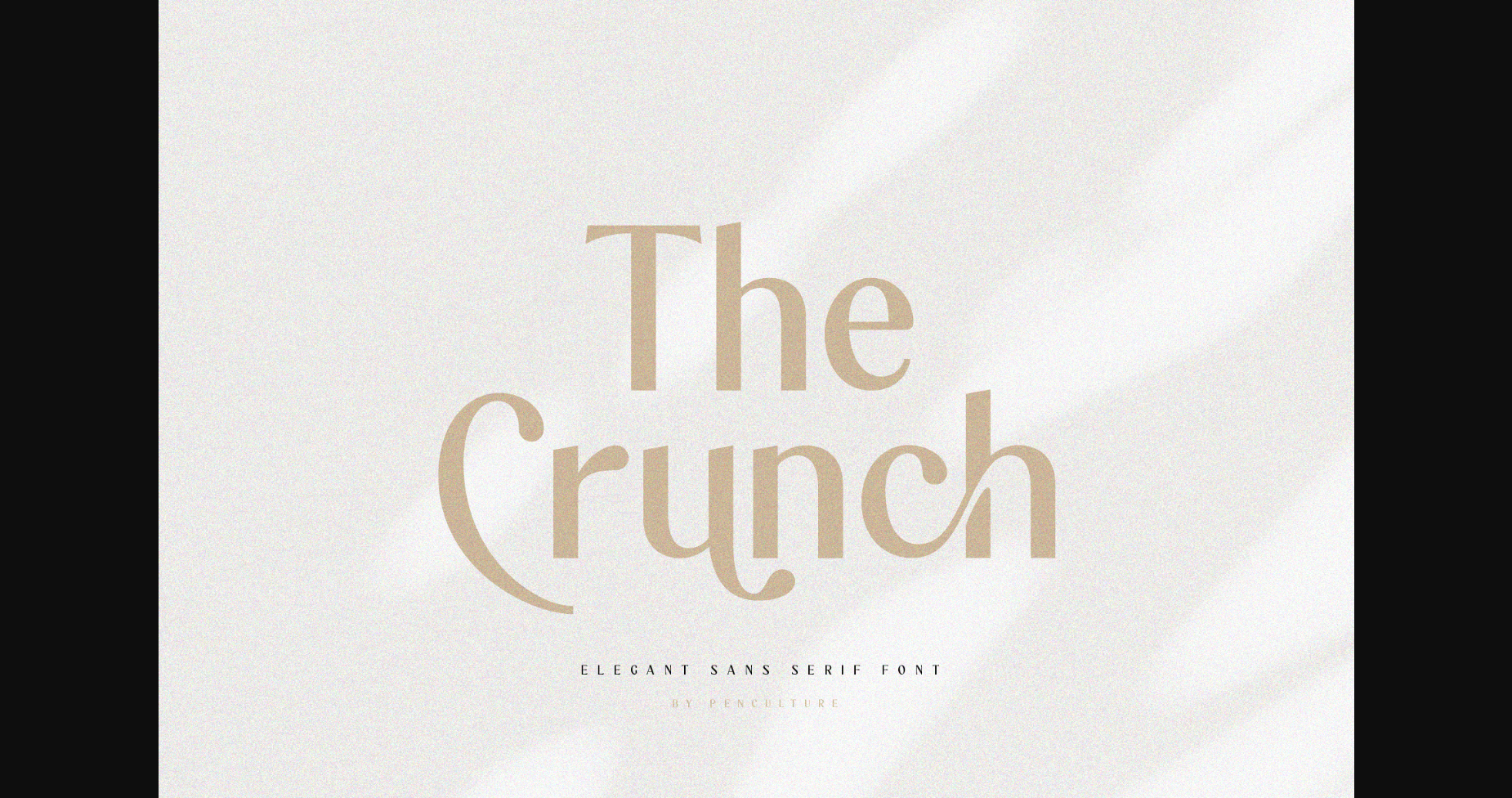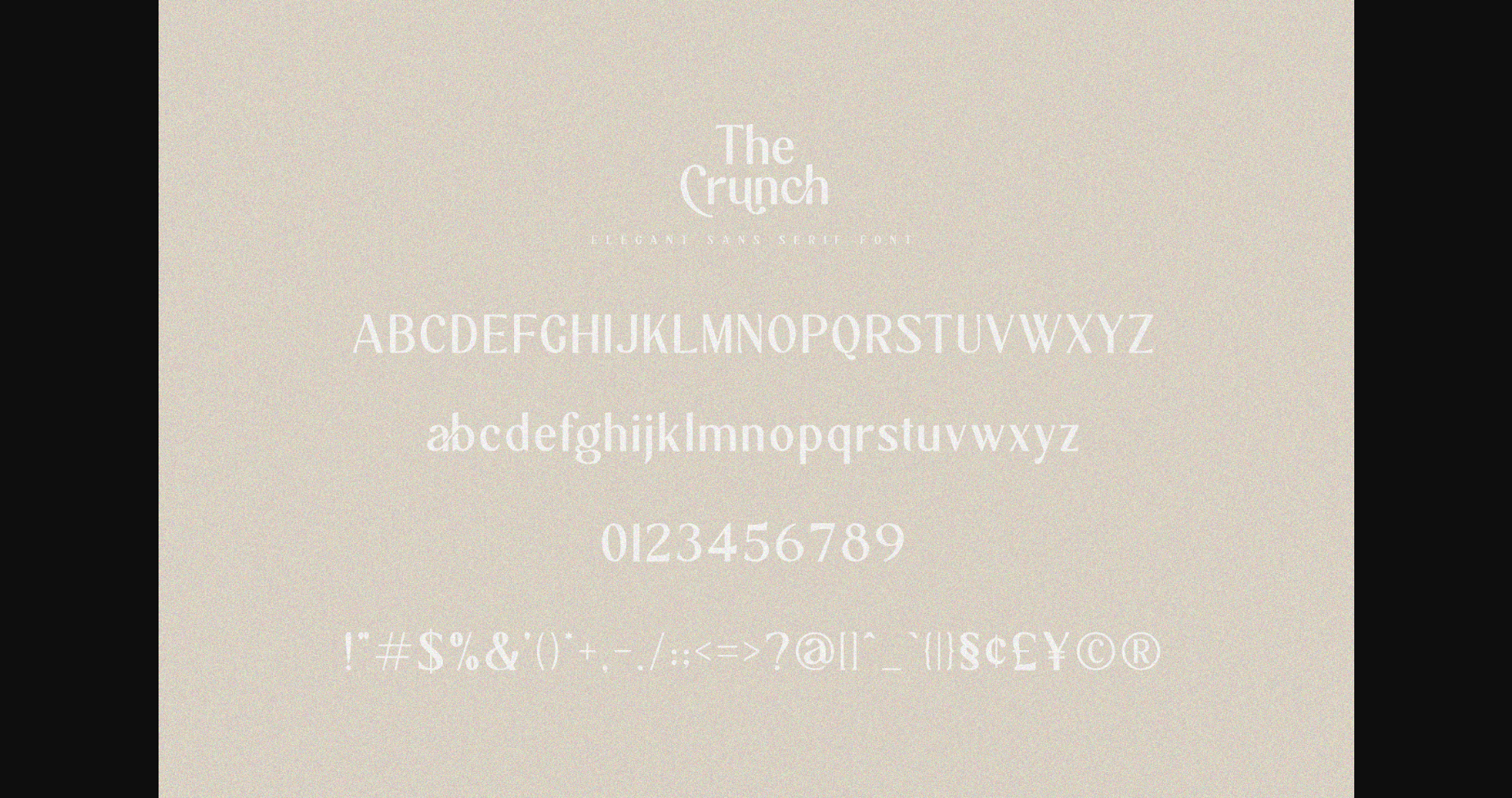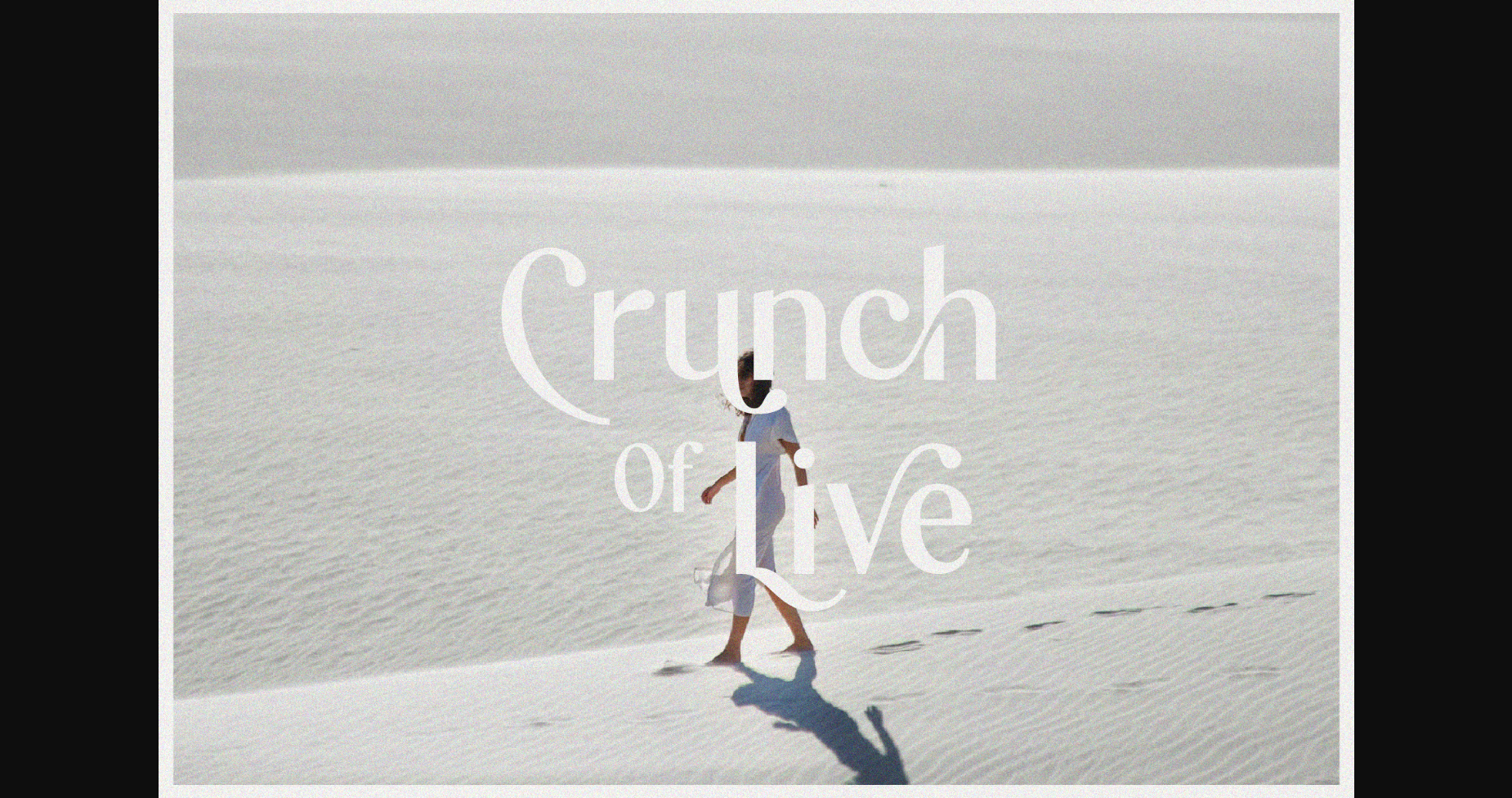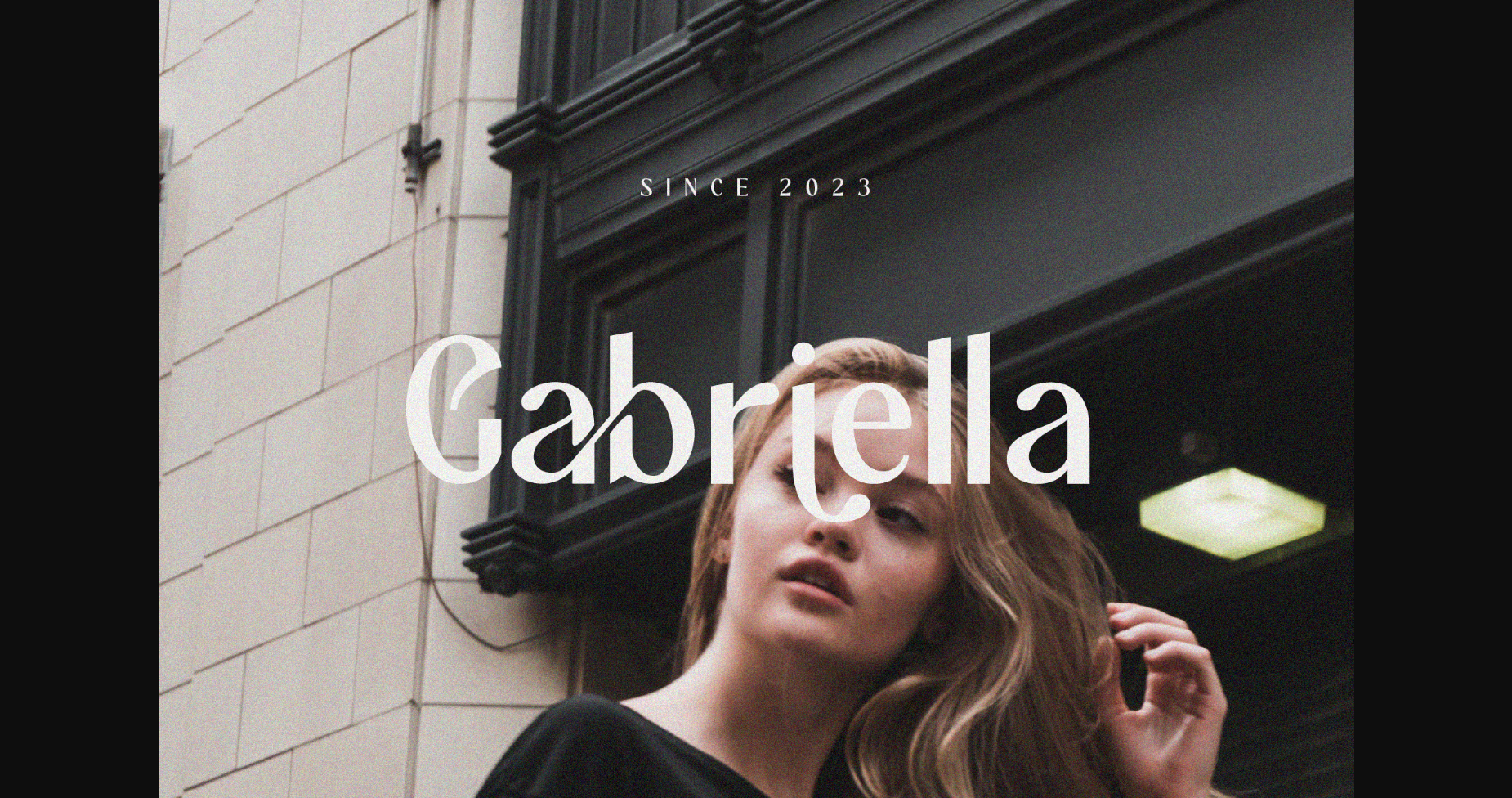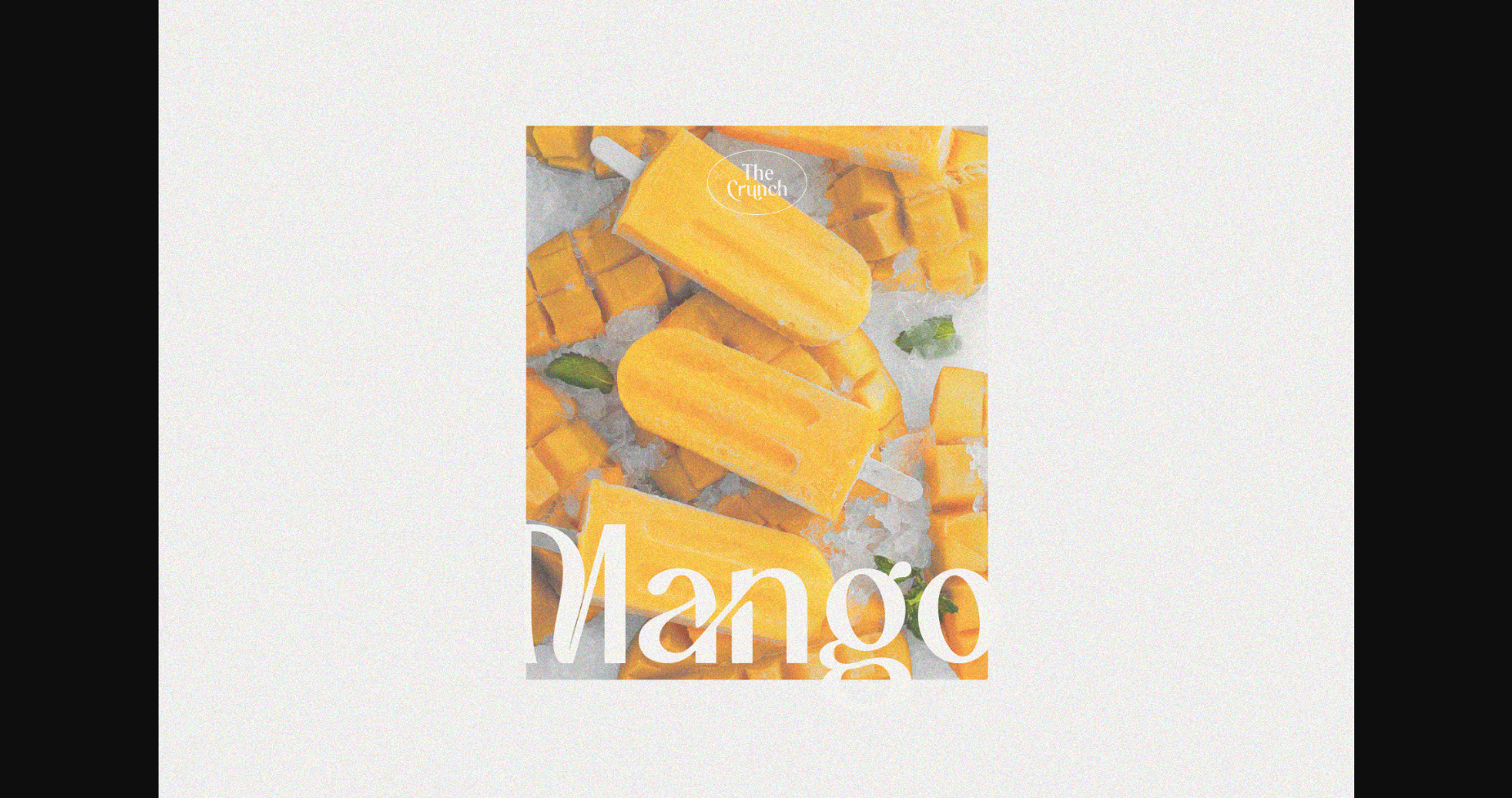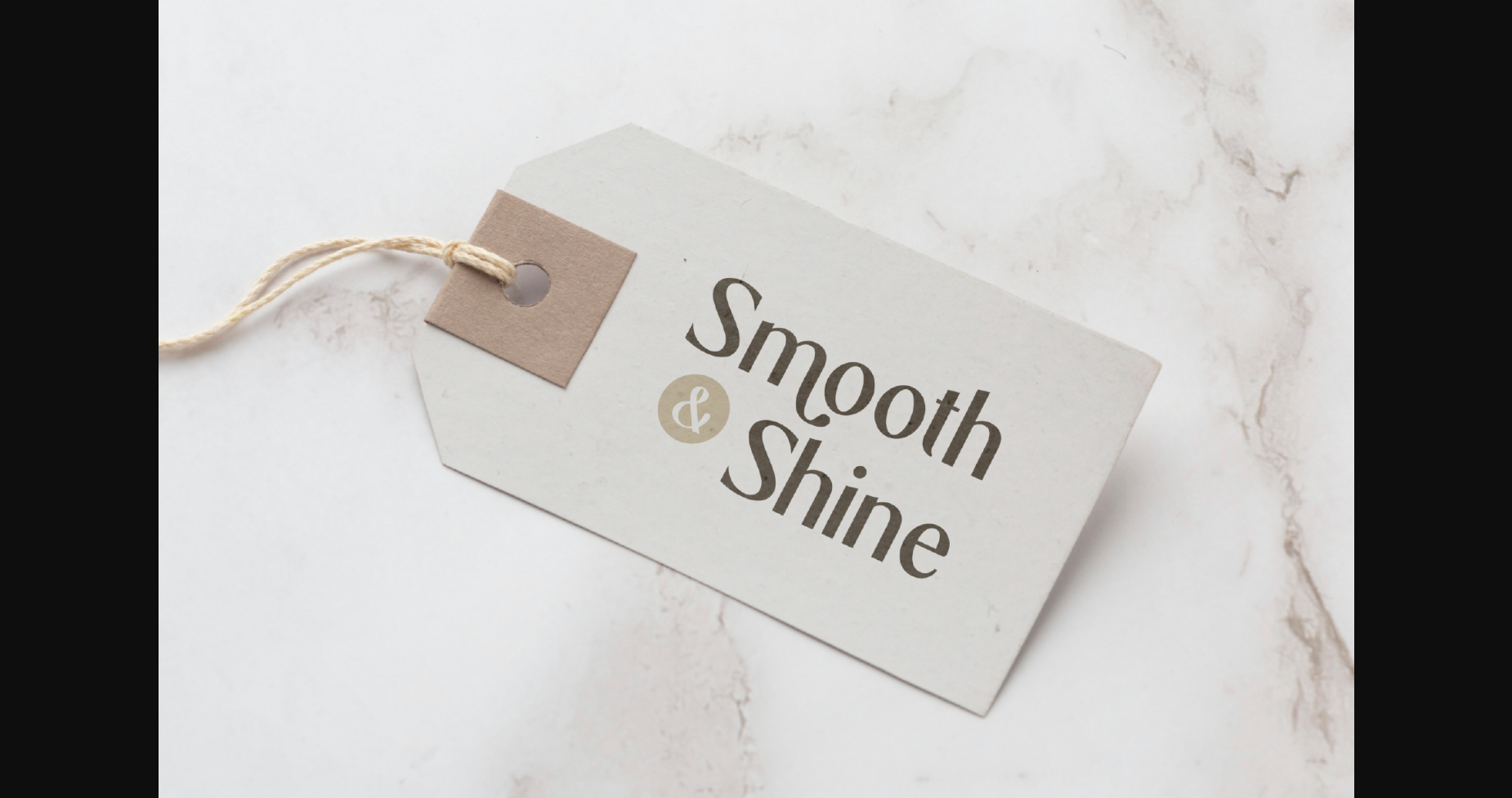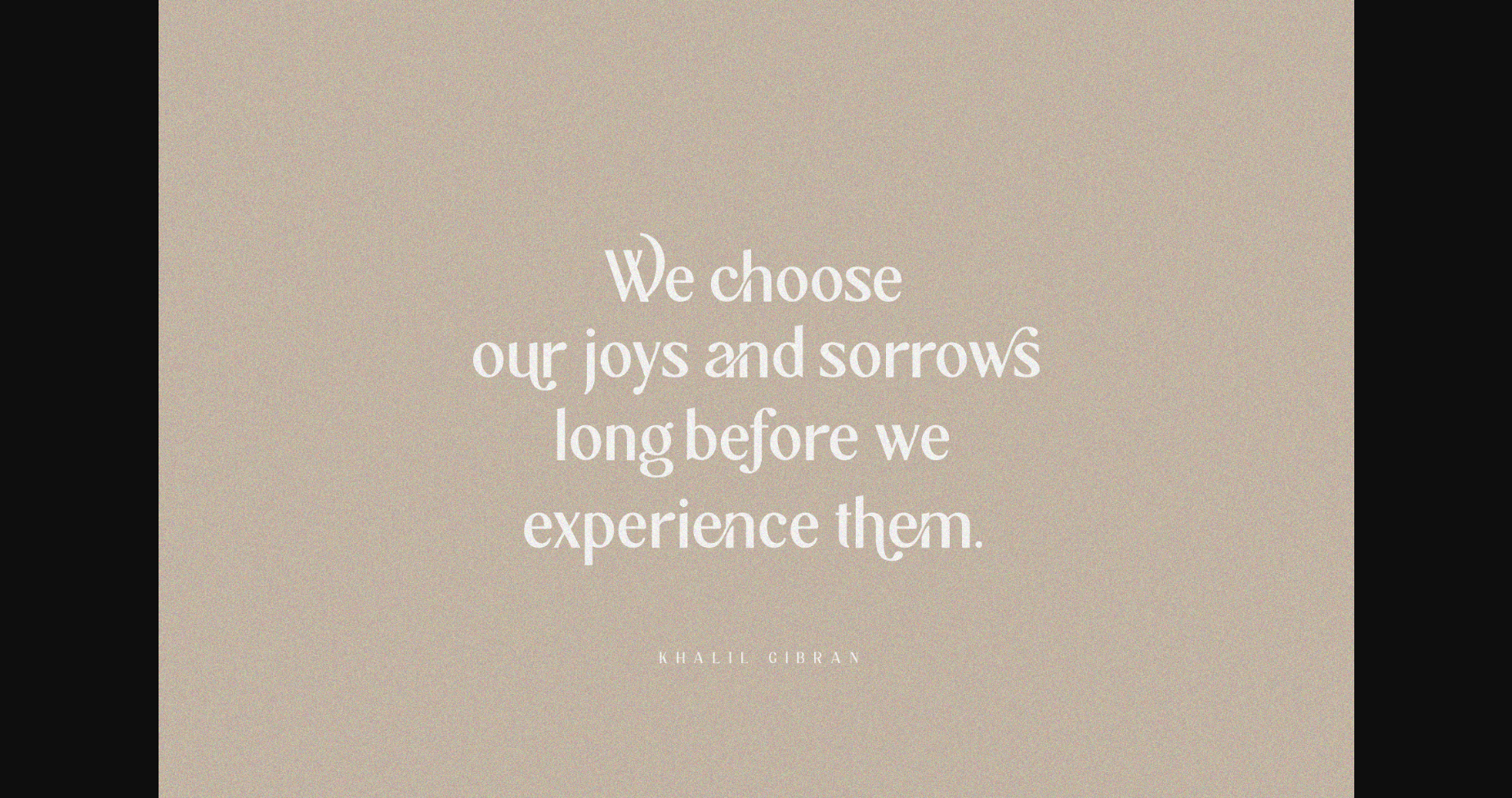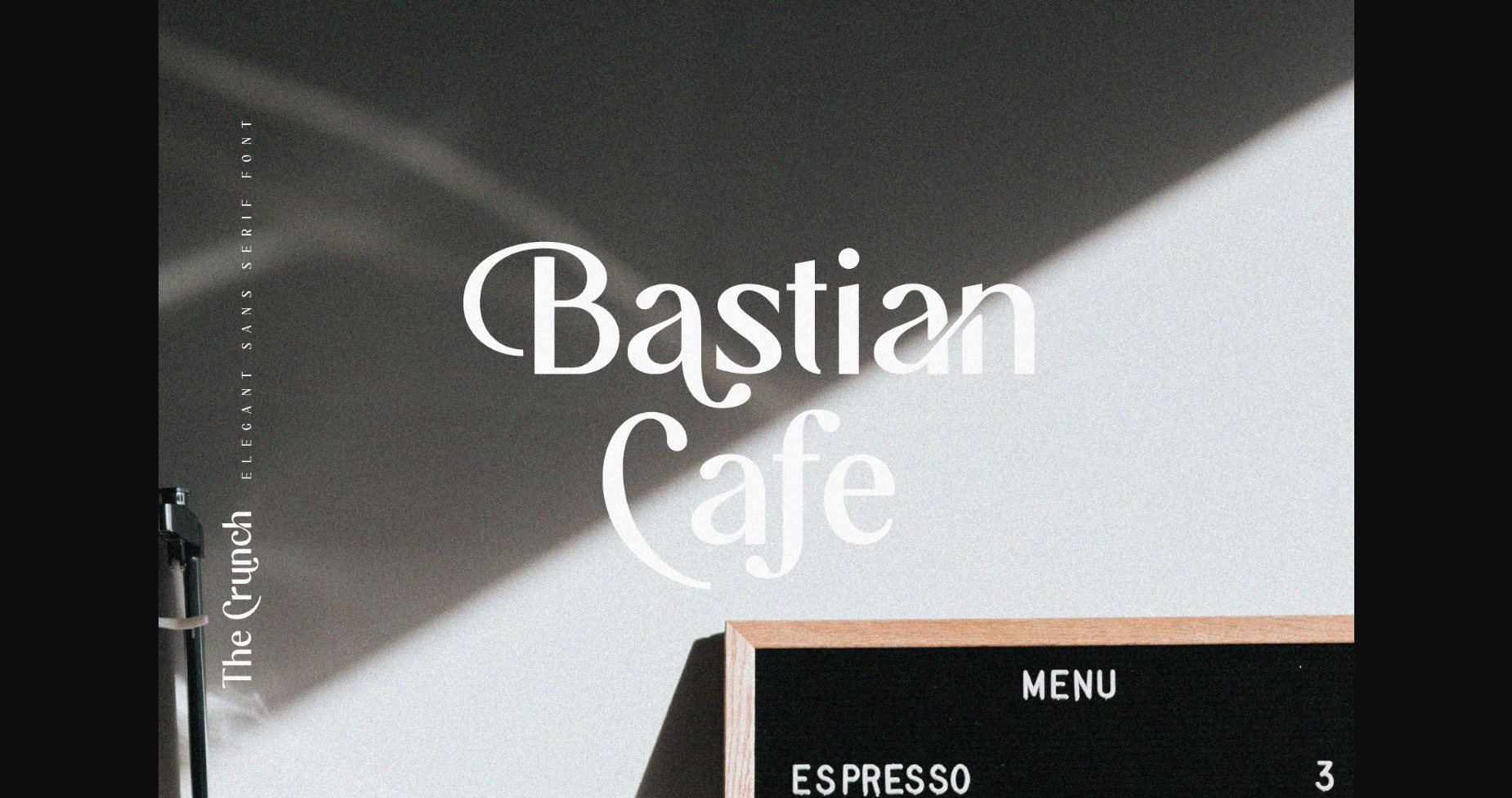
The Crunch Font
About The Crunch Font
The Crunch is a modern and elegant sans-serif font that is timeless and versatile. It features clean lines and sharp edges, with a sleek and contemporary look. Perfect for a variety of projects and applications, this font will give your design project a distinctive and stylish edge. Keep in mind that the font is PUA encoded, meaning that you can access all delightful glyphs and swashes effortlessly.